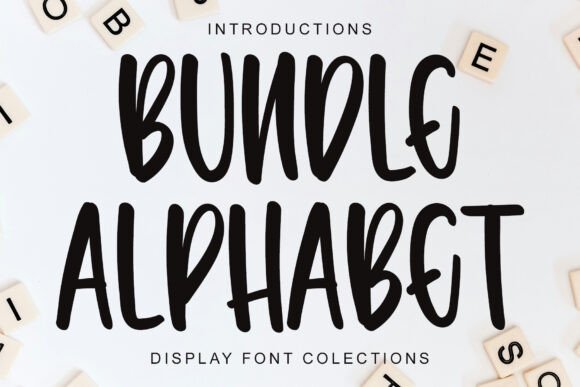
Introducing Bundle Alphabet Font: Elevate Your Design with Timeless Elegance
In the world of typography, a font can make or break the visual appeal of a design project. For those seeking a stylish and contemporary handwritten font that exudes classic sophistication, look no further than Bundle Alphabet. This beautifully crafted font is inspired by the timeless elegance of traditional calligraphy, offering a perfect blend of balance, variety, and impeccable form.
What is Bundle Alphabet Font?
Bundle Alphabet is a stylish handwritten font that embodies a contemporary atmosphere while paying homage to the classic calligraphy of the past. Its design is characterized by flowing lines, elegant curves, and a balanced structure that makes it perfect for a wide range of design applications. Whether you’re working on a branding project, a wedding invitation, or a digital platform, Bundle Alphabet is designed to enhance the beauty of your work.
Key Features of Bundle Alphabet Font
- Contemporary yet Classic: Bundle Alphabet strikes the perfect balance between modern style and timeless elegance, making it versatile for various design projects.
- Handwritten with Flair: This font boasts a handwritten appearance with a high level of sophistication, adding a personal touch to any design.
- Balanced and Varied: The font’s design ensures that text remains legible and visually appealing, with variations that keep the content engaging.
- Inspired by Calligraphy: Bundle Alphabet draws inspiration from traditional calligraphy, offering the charm and character of hand-crafted typography.
Uses of Bundle Alphabet Font
The versatility of Bundle Alphabet makes it suitable for a multitude of design projects. Here are some of the ways you can utilize this elegant font:
- Branding and Logotypes: Create a lasting impression with a unique and stylish logotype that captures the essence of your brand.
- Wedding and Event Invitations: Add a touch of elegance and sophistication to your invitations, making your event truly unforgettable.
- Packaging Design: Stand out on store shelves with eye-catching packaging that leverages the charm of Bundle Alphabet.
- Digital Platforms: Enhance your website, blog, or social media graphics with a font that offers both readability and style.
Benefits of Using Bundle Alphabet Font
Choosing Bundle Alphabet for your design projects comes with several benefits:
- Unique Identity: The font’s distinctive style helps your design stand out from the crowd.
- Emotional Connection: The elegant and personal nature of the font can create an emotional connection with your audience.
- Versatility: Its adaptability across different mediums and applications makes it a valuable addition to your design toolkit.
- Time-Saving: With its comprehensive set of characters and styles, Bundle Alphabet saves you time in the design process.
How to Use Bundle Alphabet Font Effectively
To maximize the potential of Bundle Alphabet, consider the following tips:
- Pair with Complementary Fonts: Combine Bundle Alphabet with simpler fonts for contrast and visual hierarchy.
- Adjust Letter Spacing: Fine-tune the letter spacing to ensure optimal readability and aesthetic appeal.
- Utilize Font Variations: Take advantage of the font’s variations to create emphasis and add depth to your design.
- Consider Color and Texture: Enhance the font’s beauty with thoughtful color and texture choices that match your design theme.
Bundle Alphabet Font is a stylish and versatile handwritten font that brings a touch of timeless elegance to any design project. Its contemporary yet classic appeal, combined with its balanced and varied design, makes it an excellent choice for designers looking to elevate their work. Whether you’re creating branding materials, event invitations, or digital content, Bundle Alphabet is sure to enhance the beauty and impact of your designs.
FAQs About Bundle Alphabet Font
- Q: Is Bundle Alphabet suitable for body text? A: While Bundle Alphabet is elegant and highly readable, it’s best used for headings and short paragraphs. For longer body text, consider pairing it with a more straightforward font.
- Q: What languages does Bundle Alphabet support? A: Bundle Alphabet supports multiple languages, including English and other European languages.
- Q: How can I get the most out of Bundle Alphabet? A: Experiment with different sizes, colors, and pairings with other fonts to fully leverage the font’s versatility and creative potential.